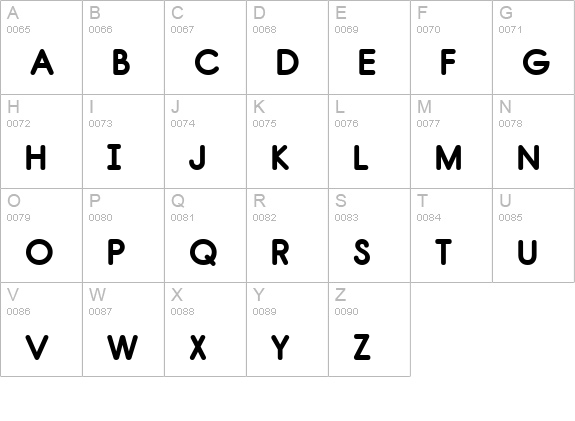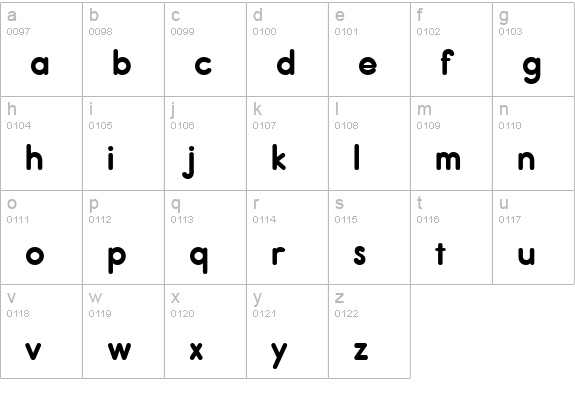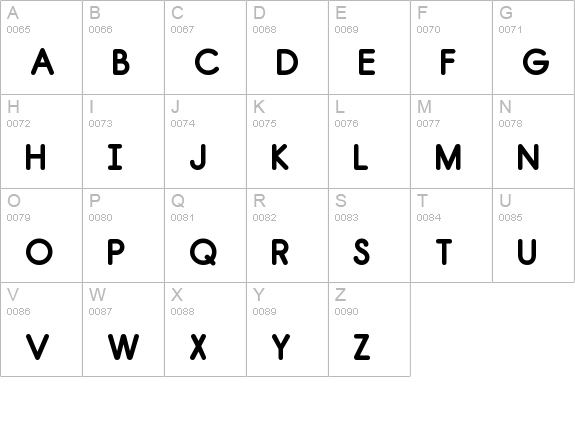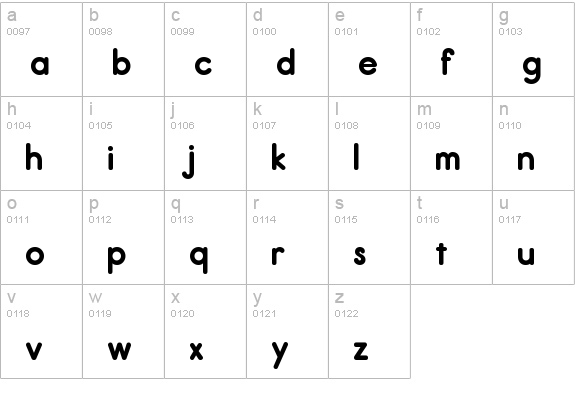
Report Bold Font Details
Report Bold font is a bold and impactful typeface that exudes confidence and authority. With its strong and commanding presence, Report Bold is perfect for headlines, titles, and any design that needs to make a bold statement. This versatile font features clean lines and a modern aesthetic, making it a great choice for both digital and print projects. Best of all, Report Bold font is available for free download at FontsMarket.com. Whether you're working on a professional project or just looking to add some extra flair to your designs, Report Bold is a fantastic option that won't cost you a thing. Download it today and start using this striking font to elevate your designs to the next level.